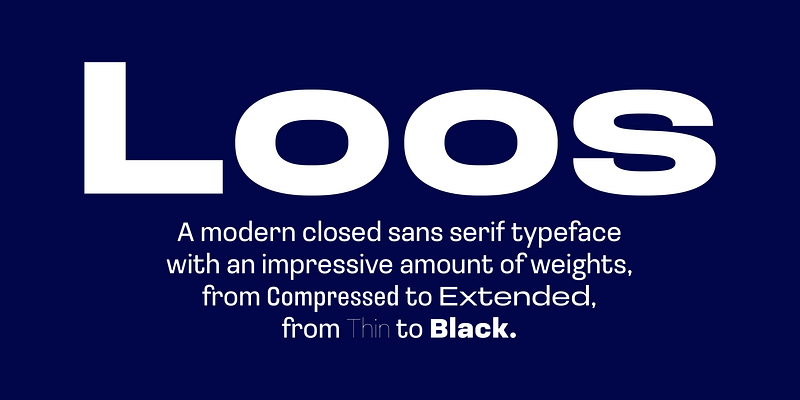
The idea for the typeface comes from the lettering developed for the Russian edition of Adolf Loos’ book, ‘Why a Man Should be Well-Dressed: Appearances Can be Revealing’. Even though there is not much left from the original graphics, it was named after Loos — as it is a certain take on the aesthetic that this man worked on and wrote about (even if a century later). Loos is a modern closed sans serif typeface with an impressive amount of weights, from Compressed to Extended, from Thin to Black. Beyond Latin and Cyrillic, Loos typeface supports Georgian script. And — it comes with the inktraps that actually do trap the ink.
CSTM Fonts
Ilya Ruderman and Yury Ostromentsky, founders of CSTM Fonts (2014) and font distributor type.today (2016) are both graphic and type designers.
They graduated from Moscow State University of Print (Graphic Design Department), where they took Alexander Tarbeev’s classes. Later Ilya Ruderman graduated from Type & Media (Royal Academy of Art), the Hague, the Netherlands. After graduation he was a tutor of Type&Typography course at British Higher School of Art and Design, Moscow (2008-2015), and an art-director of information agency RIA Novosti. He designed Cyrillic versions of typefaces such as Lava, Graphik, Neutraface and others, for Typotheque, Commercial Type, Typonine and House Industries. He is an author of: Permian typeface, Big City Grotesque and several other corporate typefaces.
Before 2013 Yury Ostromentsky worked mostly as an editorial designer and art-director of BigCity Magazine, where he used his personal lettering that was the base of the Pilar typeface. He is an author of several book series designs and logotypes.
Both typefaces of Ilya Ruderman and Yury Ostromentsky were the winners of such type design competitions as Modern Cyrillic 2009, Modern Cyrillic 2014, Granshan 2011, European Design Award 2012. Kazimir typeface and Tele2 Typefamily, the CSTM Fonts’s latest releases, were among the winners of Granshan 2015.